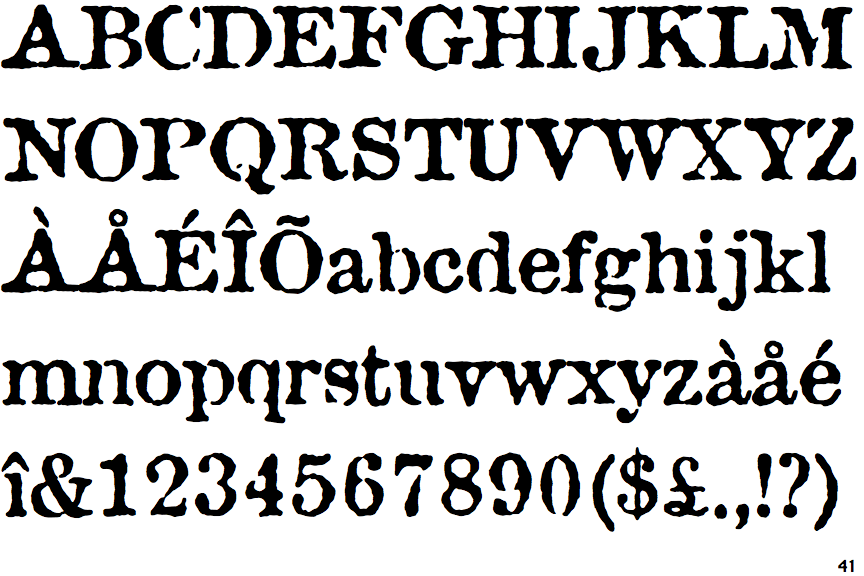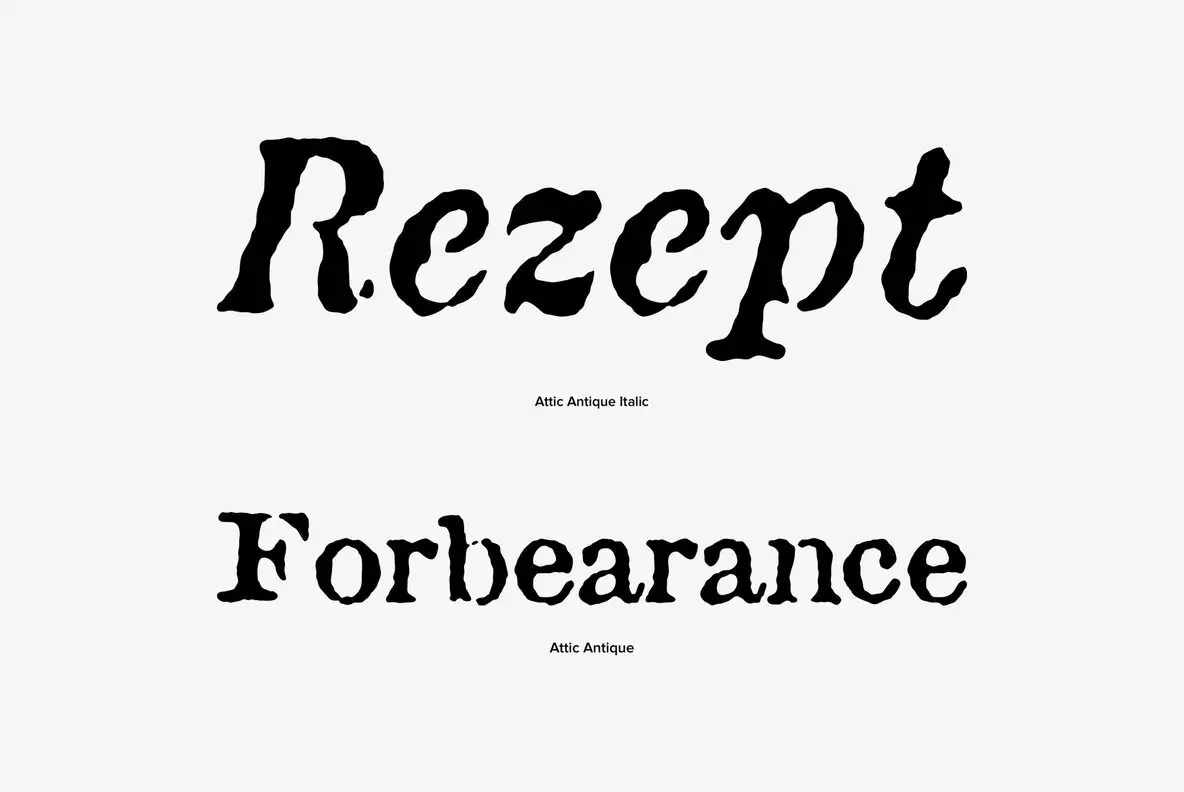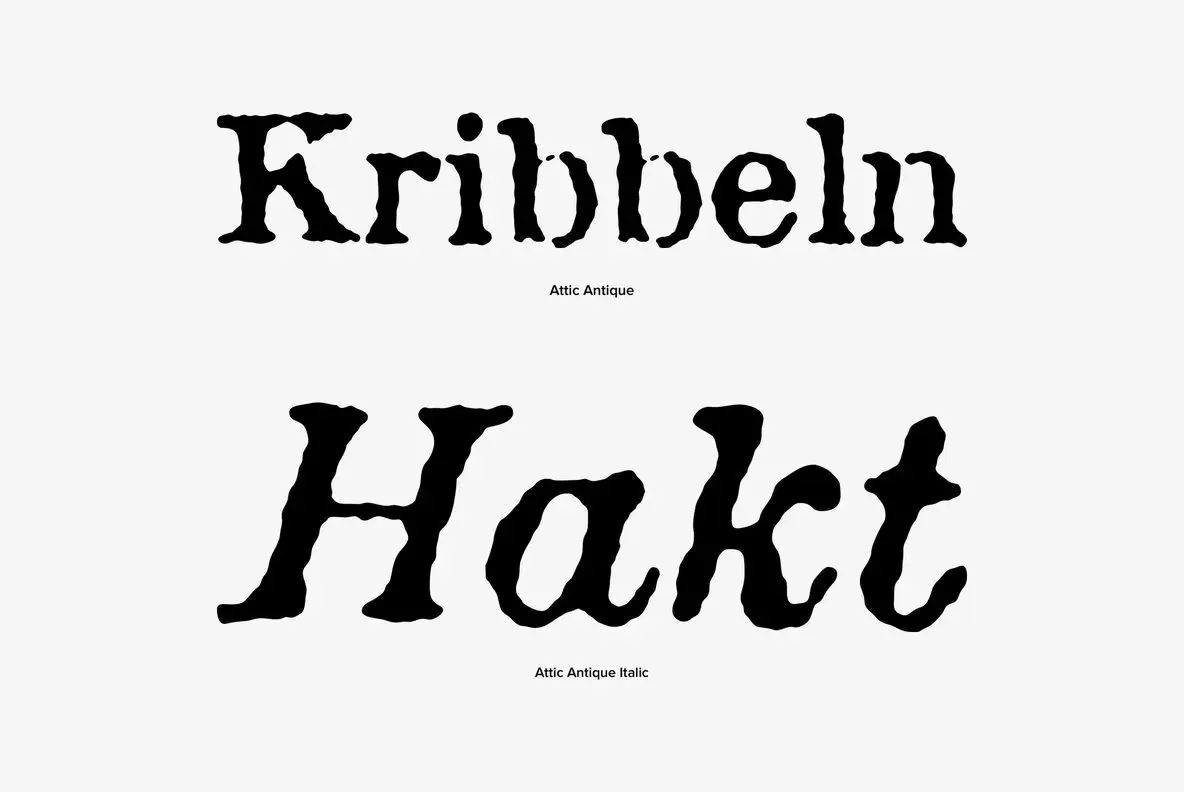
Attic Antique Font Download . Attic antique is a grunge font family. Its roman and true italic styles both come with small caps, full. The font subfamily is antique. Download attic antique for free. Attic antique™ resembles an aging serif used on the pages of an old textbook. Attic antique roman ($29), attic antique italic ($29) bundles: This typeface has two styles and was published by three islands press. Attic antique is the perfect font for all your fun designs. The font family is attic. 3ip antique text fonts collection | oldfonts historical library | 3ip type library. Attic antique regular by adobe systems incorporated. Akin to the century faces. Download attic antique regular font.
Akin to the century faces. This typeface has two styles and was published by three islands press. The font family is attic. Download attic antique for free. Attic antique roman ($29), attic antique italic ($29) bundles: The font subfamily is antique. Attic antique is a grunge font family. Attic antique™ resembles an aging serif used on the pages of an old textbook. Download attic antique regular font. 3ip antique text fonts collection | oldfonts historical library | 3ip type library.
Attic Antique Font Download Attic antique roman ($29), attic antique italic ($29) bundles: This typeface has two styles and was published by three islands press. The font family is attic. Its roman and true italic styles both come with small caps, full. The font subfamily is antique. Attic antique roman ($29), attic antique italic ($29) bundles: 3ip antique text fonts collection | oldfonts historical library | 3ip type library. Attic antique is a grunge font family. Download attic antique regular font. Attic antique™ resembles an aging serif used on the pages of an old textbook. Download attic antique for free. Attic antique regular by adobe systems incorporated. Attic antique is the perfect font for all your fun designs. Akin to the century faces.
Attic Antique W04 Regular 1.00 Fonts Free Download Attic Antique Font Download Akin to the century faces. Attic antique regular by adobe systems incorporated. Its roman and true italic styles both come with small caps, full. Download attic antique for free. Download attic antique regular font. 3ip antique text fonts collection | oldfonts historical library | 3ip type library. This typeface has two styles and was published by three islands press. The. Attic Antique Font Download.
Attic Antique font Attic Antique Font Download 3ip antique text fonts collection | oldfonts historical library | 3ip type library. Akin to the century faces. Download attic antique for free. Its roman and true italic styles both come with small caps, full. Attic antique™ resembles an aging serif used on the pages of an old textbook. Attic antique regular by adobe systems incorporated. Download attic antique regular. Attic Antique Font Download.
Times Old Attic Font Attic Antique Font Download Its roman and true italic styles both come with small caps, full. Attic antique is a grunge font family. The font family is attic. Akin to the century faces. 3ip antique text fonts collection | oldfonts historical library | 3ip type library. Download attic antique for free. This typeface has two styles and was published by three islands press. The. Attic Antique Font Download.
Attic Antique Font FontPath Attic Antique Font Download The font subfamily is antique. The font family is attic. Attic antique roman ($29), attic antique italic ($29) bundles: Attic antique is the perfect font for all your fun designs. Attic antique™ resembles an aging serif used on the pages of an old textbook. Download attic antique regular font. Its roman and true italic styles both come with small caps,. Attic Antique Font Download.
Times Old Attic Font · 1001 Fonts Attic Antique Font Download attic antique for free. Attic antique is a grunge font family. Download attic antique regular font. Attic antique is the perfect font for all your fun designs. The font family is attic. Attic antique regular by adobe systems incorporated. Its roman and true italic styles both come with small caps, full. This typeface has two styles and was published. Attic Antique Font Download.
Times Old Attic Font Download Fonts4Free Attic Antique Font Download Attic antique is the perfect font for all your fun designs. Attic antique roman ($29), attic antique italic ($29) bundles: Attic antique is a grunge font family. 3ip antique text fonts collection | oldfonts historical library | 3ip type library. The font family is attic. Download attic antique regular font. Download attic antique for free. Attic antique™ resembles an aging. Attic Antique Font Download.
Download free Attic Antique Regular font AtticAntique.ttf Attic Antique Font Download Attic antique roman ($29), attic antique italic ($29) bundles: Attic antique is the perfect font for all your fun designs. 3ip antique text fonts collection | oldfonts historical library | 3ip type library. Attic antique is a grunge font family. The font subfamily is antique. Its roman and true italic styles both come with small caps, full. Download attic antique. Attic Antique Font Download.
Times Old Attic font by Magique Fonts FontRiver Attic Antique Font Download attic antique for free. 3ip antique text fonts collection | oldfonts historical library | 3ip type library. Attic antique is the perfect font for all your fun designs. Attic antique™ resembles an aging serif used on the pages of an old textbook. The font family is attic. Attic antique is a grunge font family. The font subfamily is antique.. Attic Antique Font Download.
Attic Antique Font YouWorkForThem Attic Antique Font Download Akin to the century faces. 3ip antique text fonts collection | oldfonts historical library | 3ip type library. The font family is attic. Attic antique is a grunge font family. Download attic antique regular font. Download attic antique for free. Attic antique is the perfect font for all your fun designs. Attic antique™ resembles an aging serif used on the. Attic Antique Font Download.